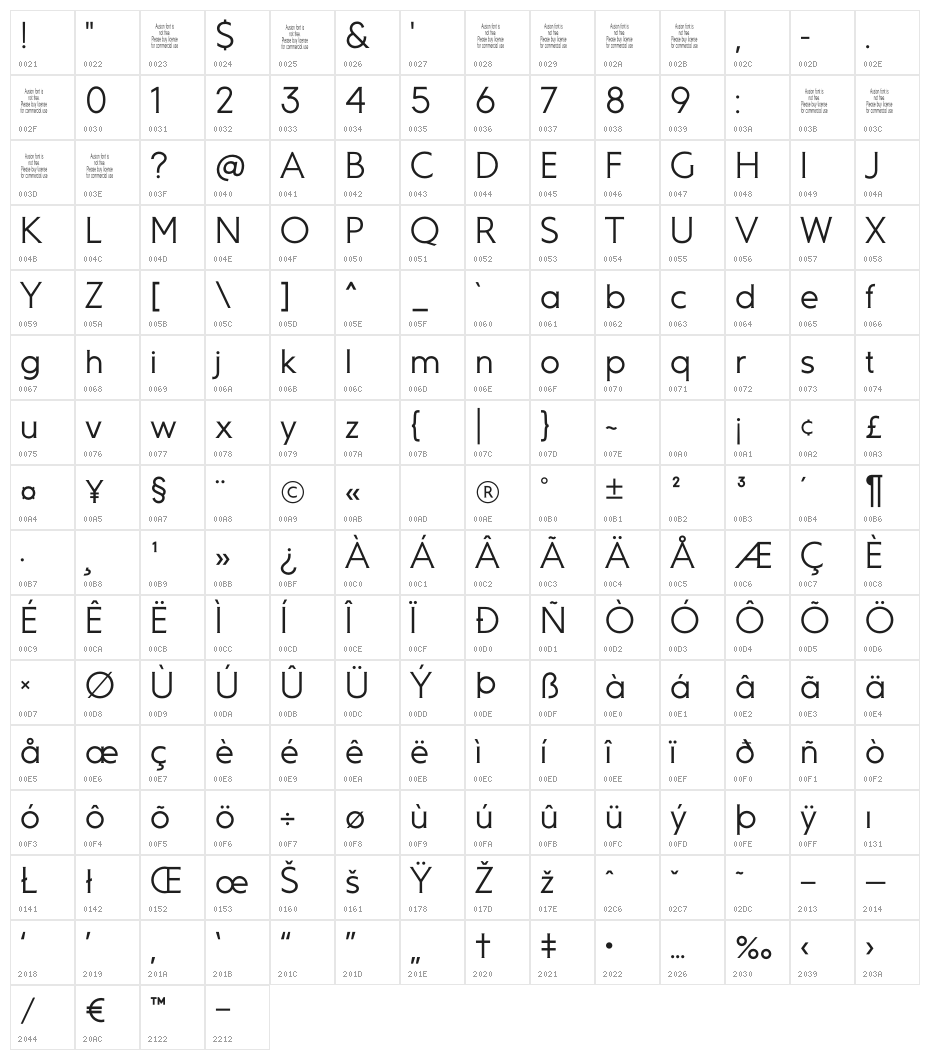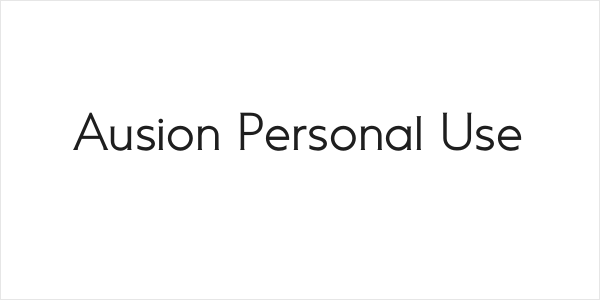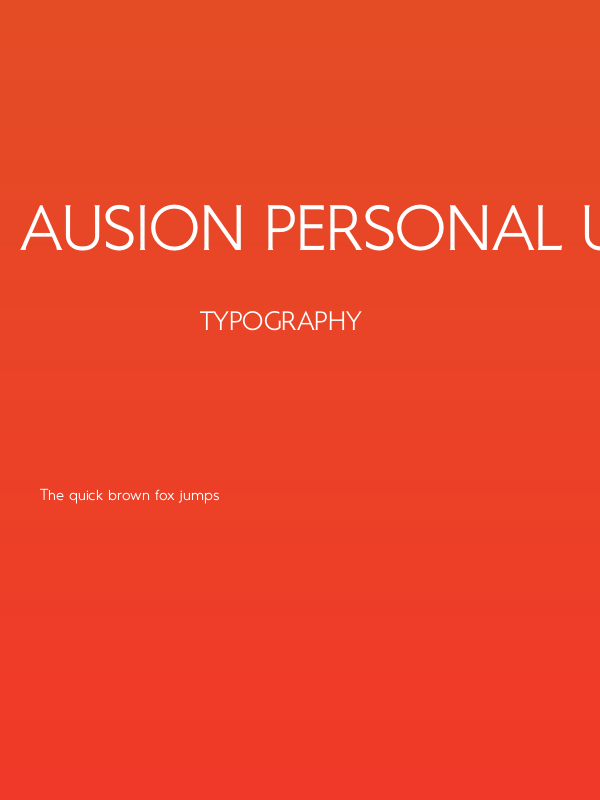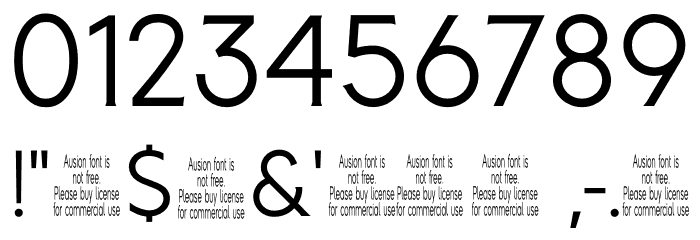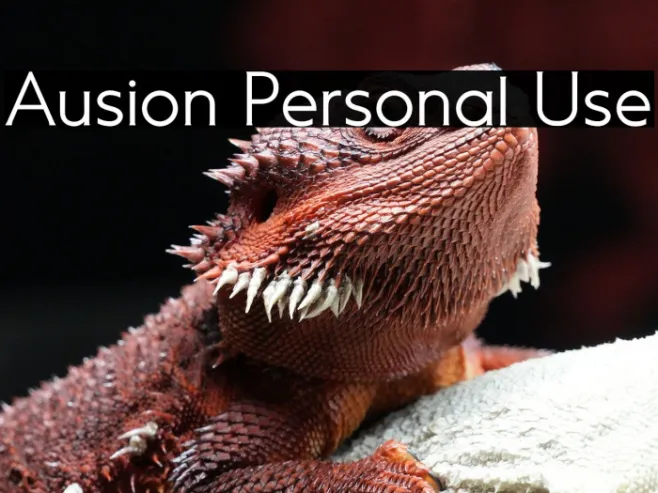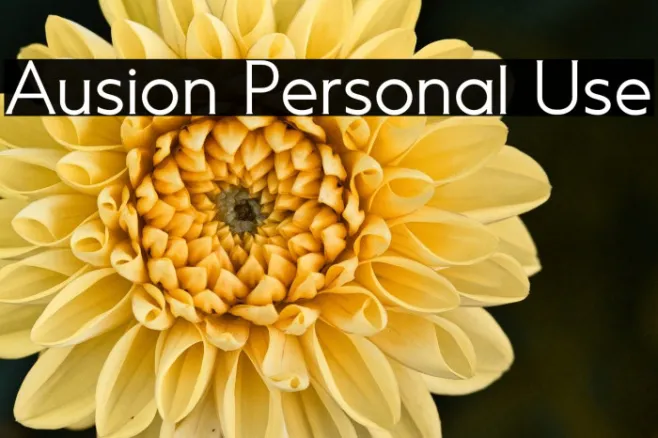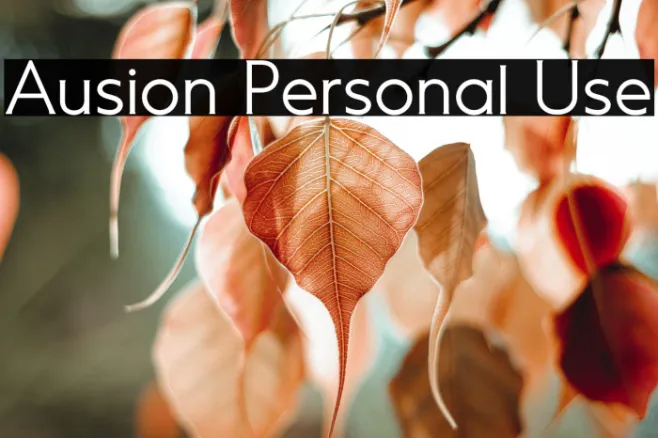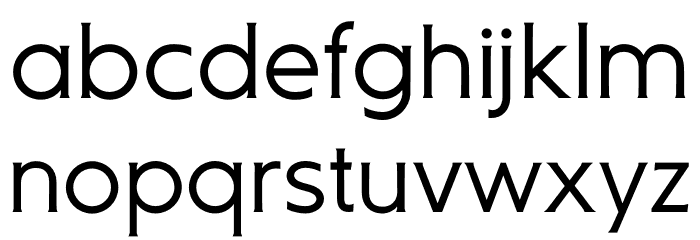
Ausion Personal Use Font
Ausion Personal Use Description
This font features a clean and modern sans-serif style with a geometric structure. The characters are well-balanced, offering a harmonious blend of curves and straight lines. Uppercase letters are bold and commanding, while lowercase letters maintain a consistent flow, making it versatile for various design needs. The numerals are clear and legible, and the special characters are distinct, ensuring readability across different contexts. This font is suitable for both digital and print media, providing a professional and contemporary look.
| Proposed Projects | Ideal for branding, editorial design, web design, and advertising materials. |